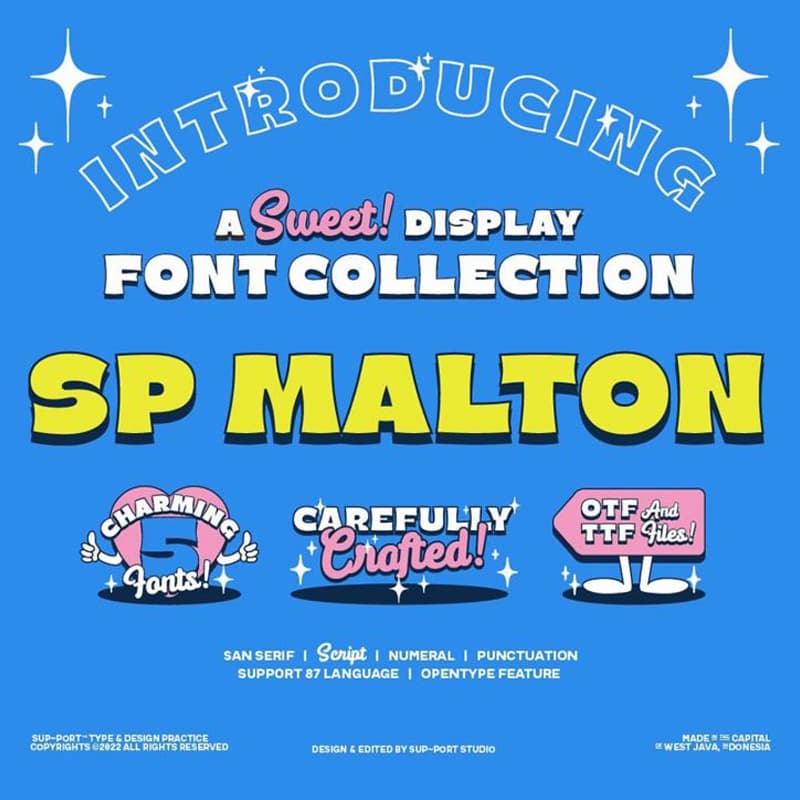
<p>SP MALTON is a bundle collection of 4 Sans Serif Style font & 1 Script Style font + FREE Graphic Sticker & Illustration with a dynamic style, following the current trends, can include a modern vintage look, happy, elegent look, and clean.<br><br>These bundle would be perfect to combine in your design. Typeface coming with opentype feature like ligatures and ordinal, as well as multi-lingual support, currency figures, numerals, punctuation, arrow.<br><br>Suitable for any graphic design, logo, t-shirt, print, business cards, branding materials, nature photography, etc, made with carefully crafted.<br><br><br>SP Malton is the perfect font to get your design noticed. This font bundle comes with 4 different style fonts, including a modern vintage look that can be used for old-school flair or an elegant yet happy tone for your projects.<br><br>File Includes:<br>SP_MALTON_Sans-Solid.otf<br>SP_MALTON_Sans-SolidItalic.otf<br>SP_MALTON_Sans-Outline.otf<br>SP_MALTON_Sans-OutlineItalic.otf<br>SP_MALTON_Script-Regular.otf<br>FREE STICKER & ILLUSTRATION PACK<br><br>Opentype Features:<br>Ligatures, Ordinals, Stylistic Sets</p>